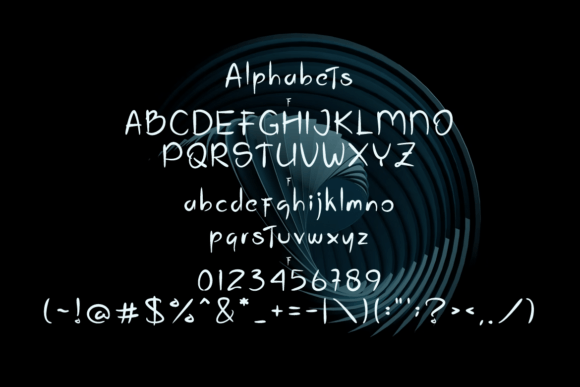
Brunope Font: Elevate Your Designs with Elegance and Sophistication
In the world of typography, fonts play a crucial role in conveying the tone and personality of a brand or design. For those seeking a classy and elegant handwritten font, Brunope is an exceptional choice. This stunning font is perfect for fashion, apparel projects, signatures, album covers, logos, branding, magazines, social media, or any creative endeavor that demands a stylish touch.
The Essence of Brunope Font
Brunope is a meticulously crafted handwritten font that exudes sophistication and refinement. Its elegant strokes and fluid connections make it an ideal choice for designers and crafters looking to add a touch of luxury to their work. Whether you’re creating a fashion brand, designing a logo, or crafting a social media post, Brunope font is sure to make a lasting impression.
Key Features of Brunope Font
- Classy and Elegant: Brunope font boasts a sophisticated and refined aesthetic, perfect for high-end designs and luxury brands.
- Handwritten Style: The font’s handwritten style adds a personal touch, making it ideal for signatures, letters, and other creative projects.
- Versatile: Brunope font can be used for a wide range of applications, including fashion, apparel, logos, branding, magazines, and social media.
- Easy to Read: Despite its elegant nature, Brunope font remains highly legible, ensuring that your message is conveyed clearly and effectively.
Use Cases for Brunope Font
Brunope font is an incredibly versatile typeface that can be used in various design projects. Here are some examples:
- Fashion and Apparel: Use Brunope font to create stunning fashion labels, logos, and branding materials that exude style and sophistication.
- Signatures and Logos: Add a touch of elegance to your signatures and logos with Brunope font, perfect for professionals and businesses.
- Album Covers and Music Branding: Brunope font is an excellent choice for album covers, music labels, and other music-related branding materials.
- Magazines and Social Media: Use Brunope font to create eye-catching social media posts, magazine headlines, and article titles that demand attention.
Why Choose Brunope Font?
With so many fonts available, why choose Brunope? Here are a few compelling reasons:
- Unique and Distinctive: Brunope font stands out from the crowd, offering a unique and distinctive style that sets your designs apart.
- High-Quality: Brunope font is crafted with precision and attention to detail, ensuring a high-quality finish that reflects your brand’s values.
In conclusion, Brunope font is an exceptional choice for designers and crafters seeking a classy and elegant handwritten font. Its versatility, legibility, and sophistication make it an ideal choice for a wide range of design projects. Whether you’re creating a fashion brand, designing a logo, or crafting a social media post, Brunope font is sure to elevate your designs and leave a lasting impression.